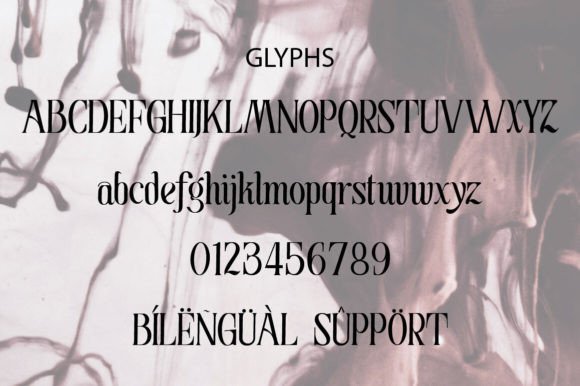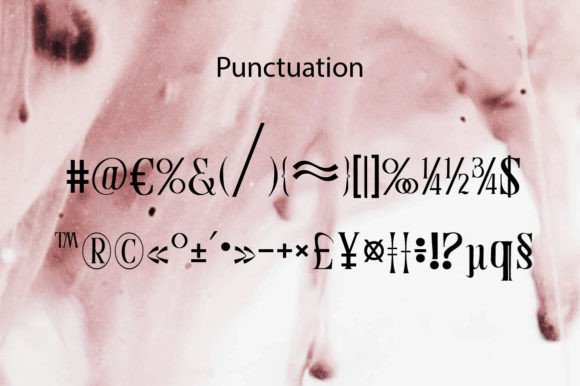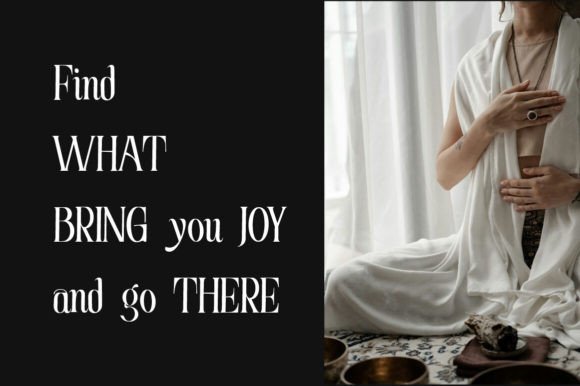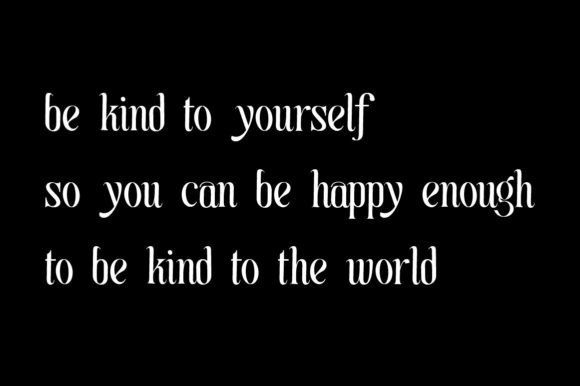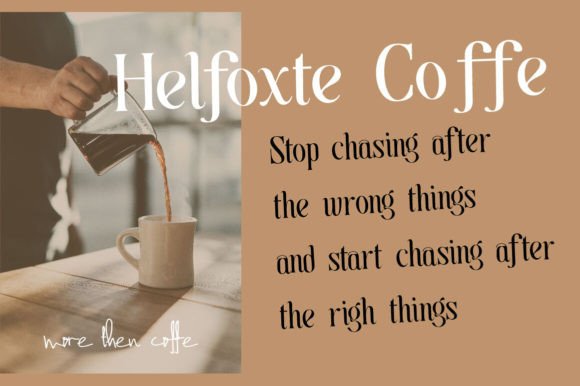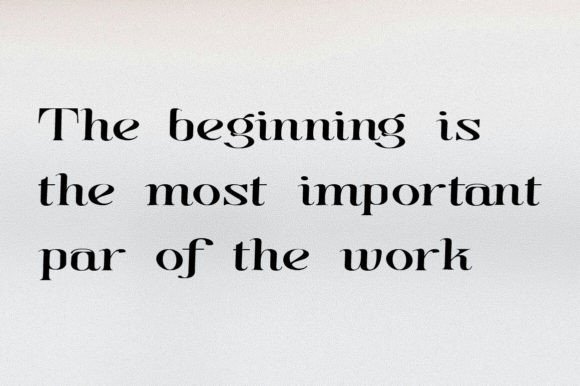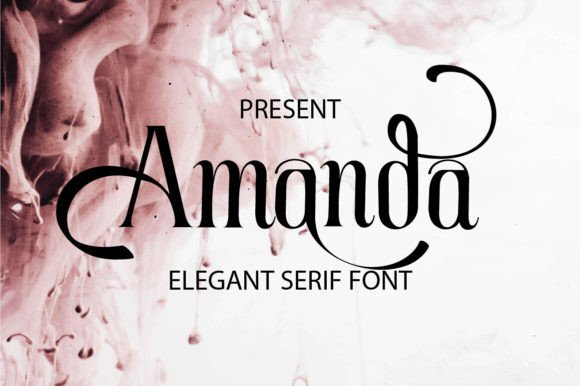
I still remember the countless hours I spent searching for the perfect font for a luxury branding project. My client wanted something that exuded timeless elegance and sophistication, but I was coming up empty-handed. That was until I stumbled upon Amanda, a stylish serif font that has since become a staple in my design toolkit.
An Honest Review of Amanda Font
- ✨ Refined serifs and well-proportioned letterforms that scream luxury
- ✅ Perfect for branding, editorial work, and high-end designs
- 💫 Timeless beauty and elegance that elevates any project
- 🎨 Highly versatile and works well with a variety of design styles
While Amanda is an exceptional font, there are a few things to keep in mind:
- 🤔 Some users may find the font a bit too ornate for certain projects
The Story Behind Amanda Font
Amanda font was designed by a renowned type designer who sought to create a font that embodied timeless elegance and sophistication. Inspired by classic serif fonts, Amanda brings a sense of refinement and luxury to any project. While the designer’s true identity remains a mystery, their passion for typography is evident in every detail of Amanda font.
| What is Amanda font best suited for? | Amanda font is perfect for branding, editorial work, and luxury designs. Its refined serifs and well-proportioned letterforms make it ideal for projects that require a touch of elegance and sophistication. |
| Is Amanda font suitable for body text? | While Amanda font is beautiful, it’s best used for headlines and titles. Its ornate details may make it less suitable for large blocks of body text. |
| Does Amanda font come with OpenType features? | Yes, Amanda font comes with a range of OpenType features, glyphs, and stylistic alternates that can enhance your designs. |